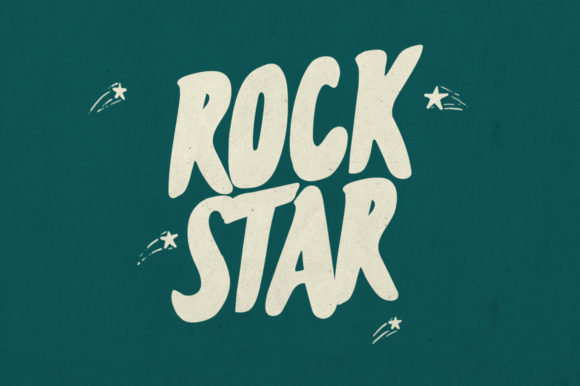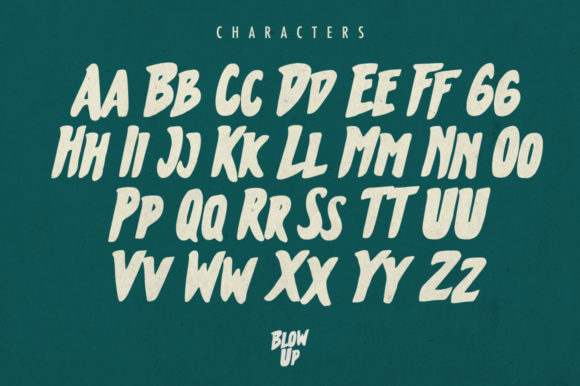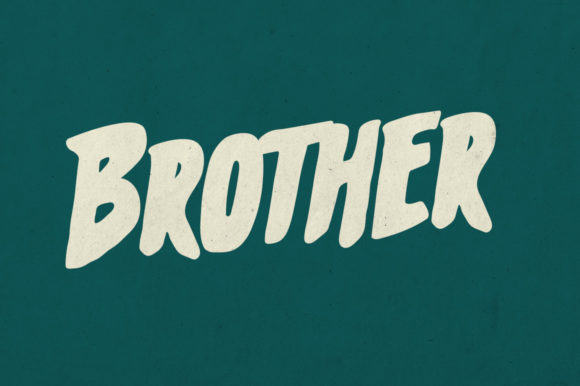
Have you ever stared at a blank page, struggling to come up with the perfect design element to make your project pop? We’ve all been there – and it’s moments like these that make us appreciate the little things that can make a big difference. For designers and crafty enthusiasts alike, the right font can be the game-changer you need to take your project from ordinary to extraordinary.
Enter the Blow Up Font, a cool and versatile display font that’s perfect for a wide range of creative endeavors. Whether you’re working on a digital design, creating handmade crafts, or putting together a presentation, this font has the potential to elevate your work and make it truly stand out. As a go-to font for designers, Blow Up Font is a valuable asset that can add a touch of personality and style to any project.
Blow Up Font Key Features
- Unique Characteristics: Blow Up Font features a unique, bold, and playful design with exaggerated letterforms, making it perfect for eye-catching headings and titles
- Style Options: Available in 3 styles, Regular, Bold, and Outline, to suit various design needs
Designer Review: Blow Up Font
Overall, I’d say the Blow Up Font is an interesting, if not entirely successful, experiment in typography. Here are my thoughts.
- Unique aesthetic: The font’s bold, rounded shapes and dramatic flair set it apart from more traditional sans-serif fonts.
- High contrast: The font’s high contrast between thick and thin lines creates visual interest and makes it perfect for use in headings or titles.
- Customization options: The font’s creators have included a range of customization options, from font size to line spacing, making it easy to tailor the font to your needs.
- Readability issues: At smaller font sizes, the font’s bold lines and high contrast can make it difficult to read, particularly for those with visual impairments.
- Limited legibility: The font’s unique shape and style can make it difficult to read at a glance, particularly for longer blocks of text.
Overall, the Blow Up Font is a visually striking font that’s perfect for use in headings or titles. While it may not be the best choice for body text, it’s a great option for anyone looking to add a bit of flair to their design. Just be mindful of readability issues and use it sparingly.